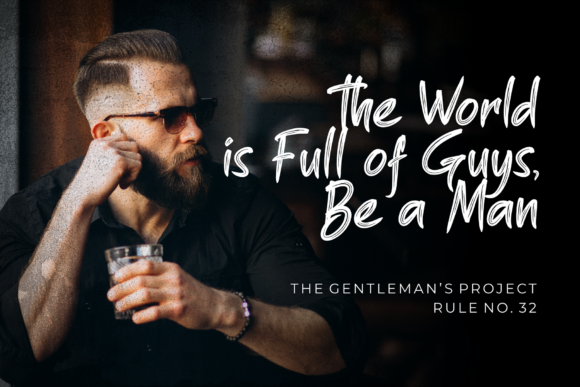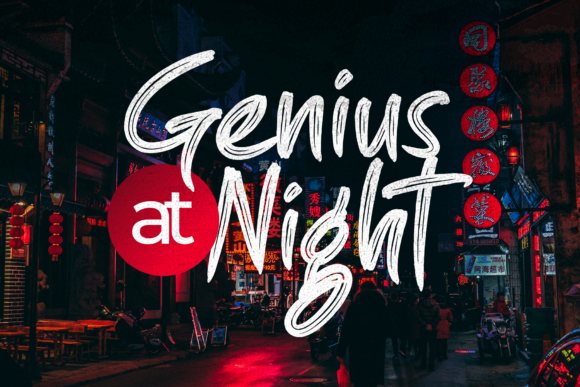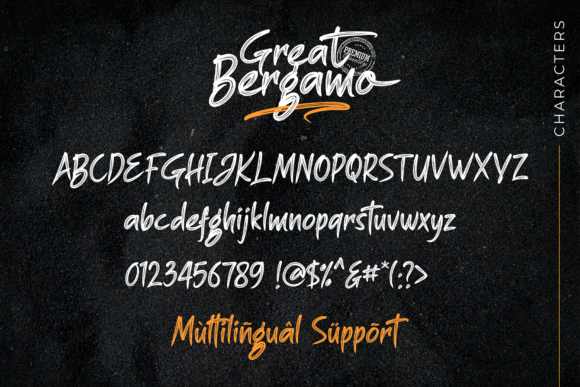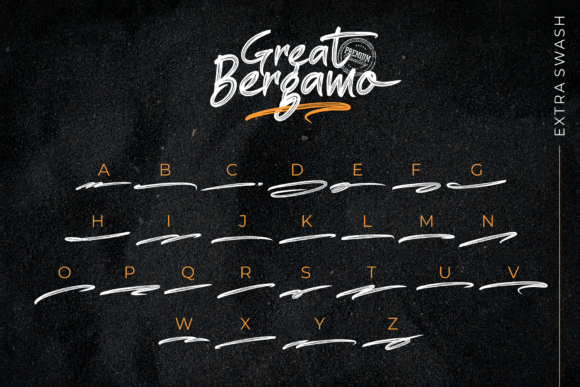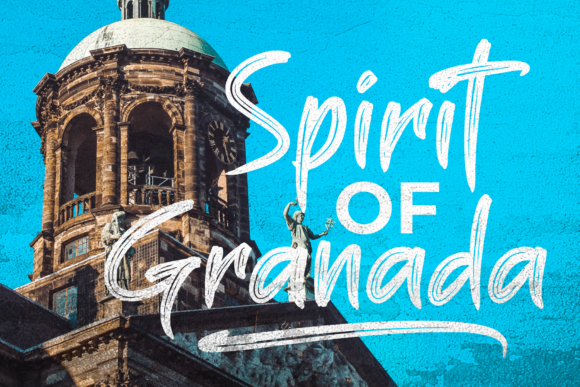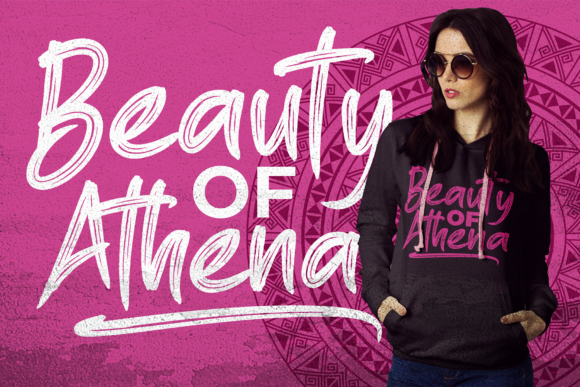
Introduction to Great Bergamo Font
Great Bergamo is a flowing handwritten font, described by an elegant touch, perfect for your favorite projects.
Key Features of Great Bergamo Font